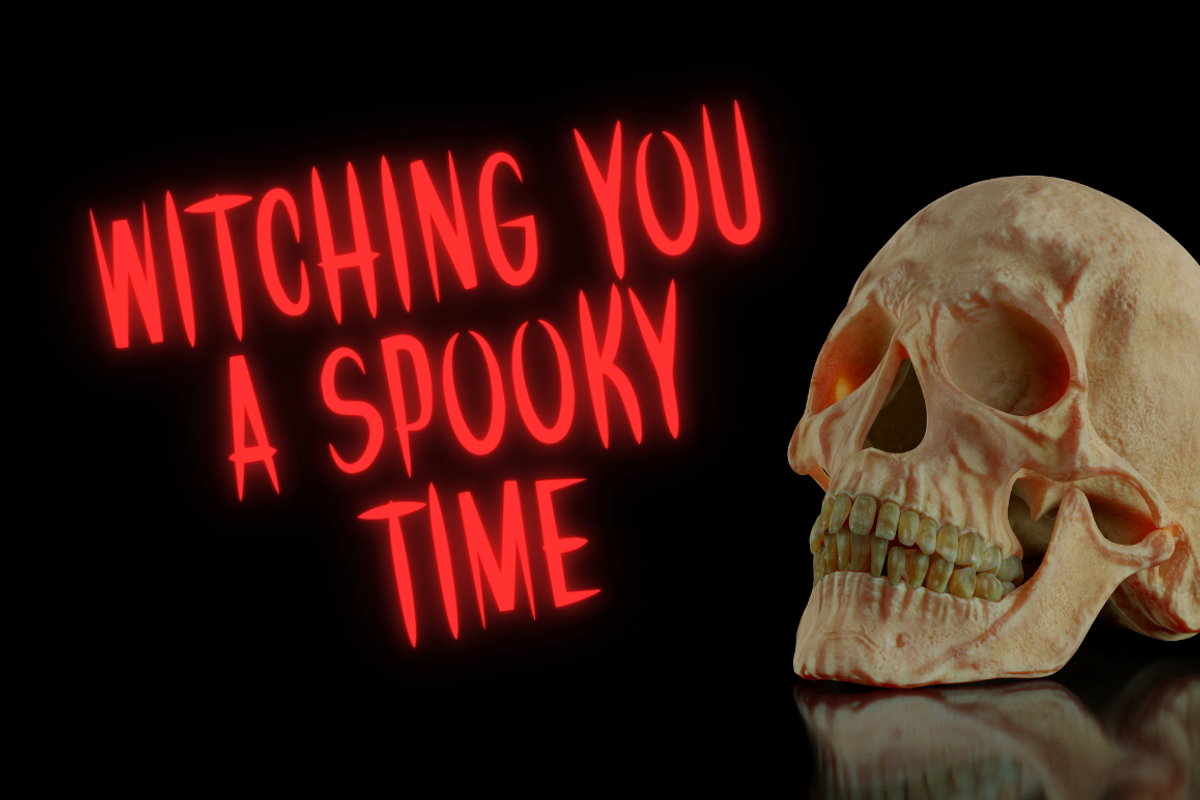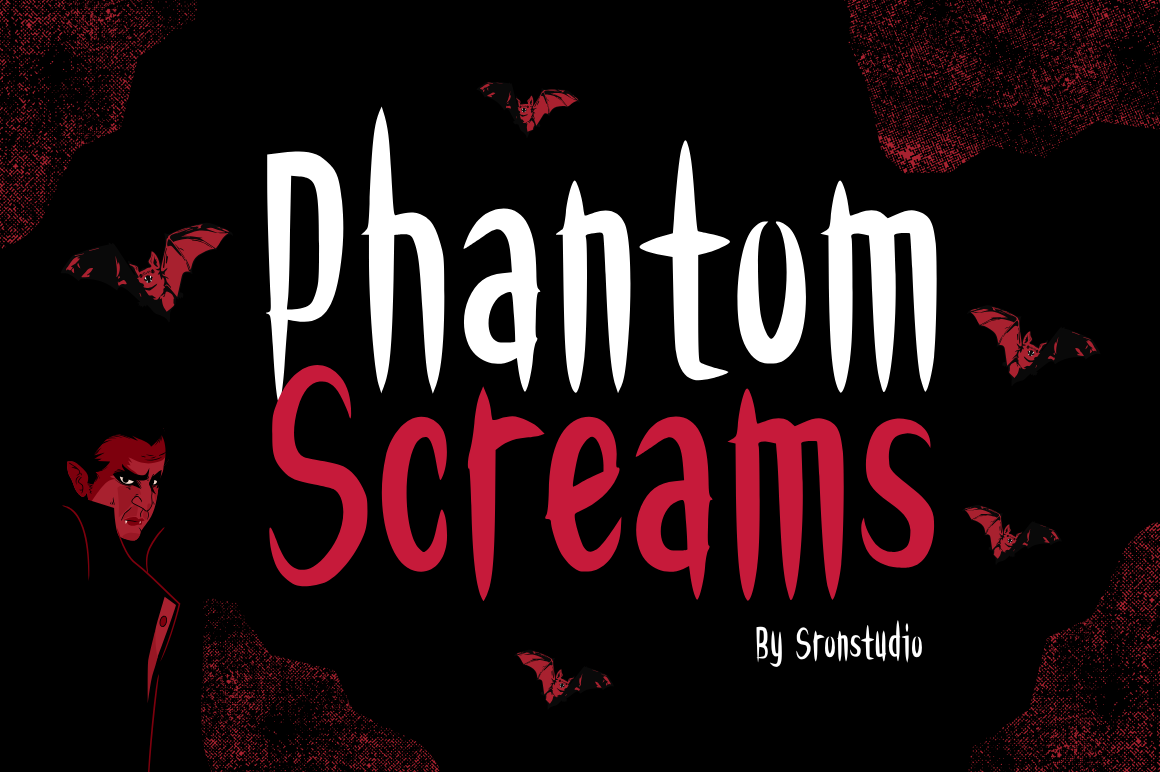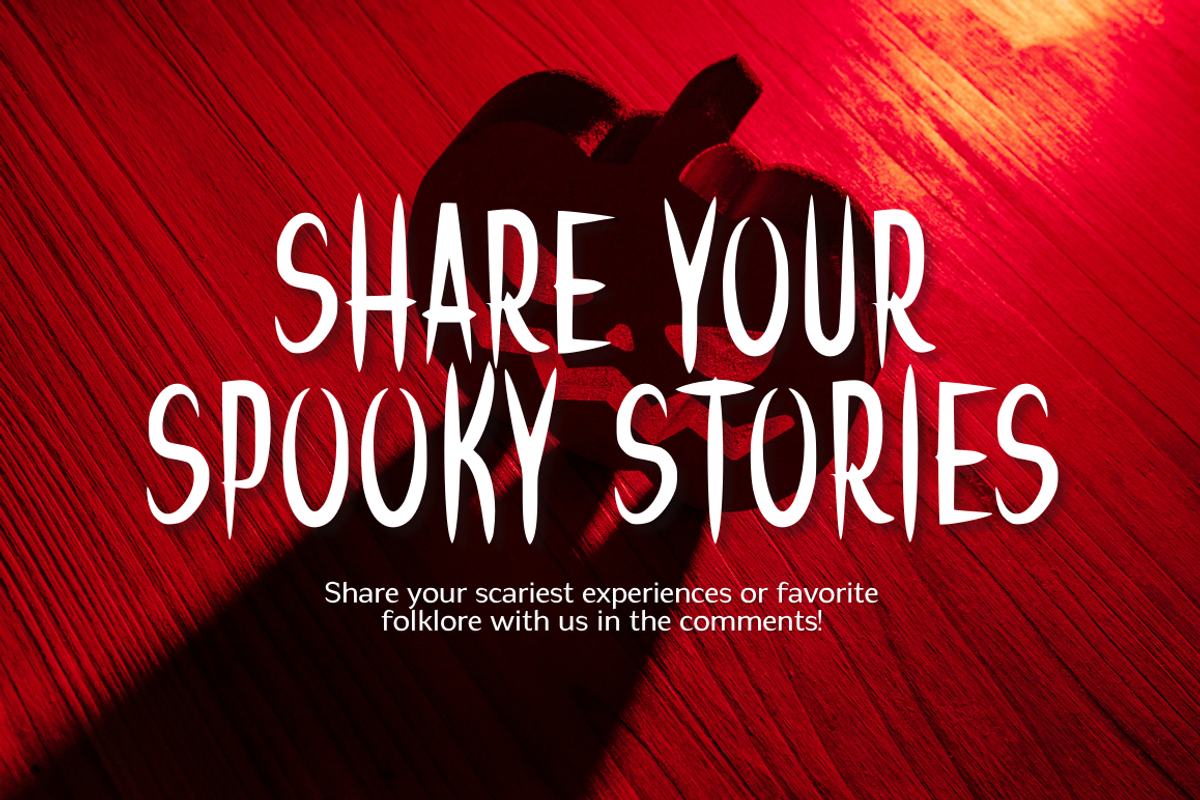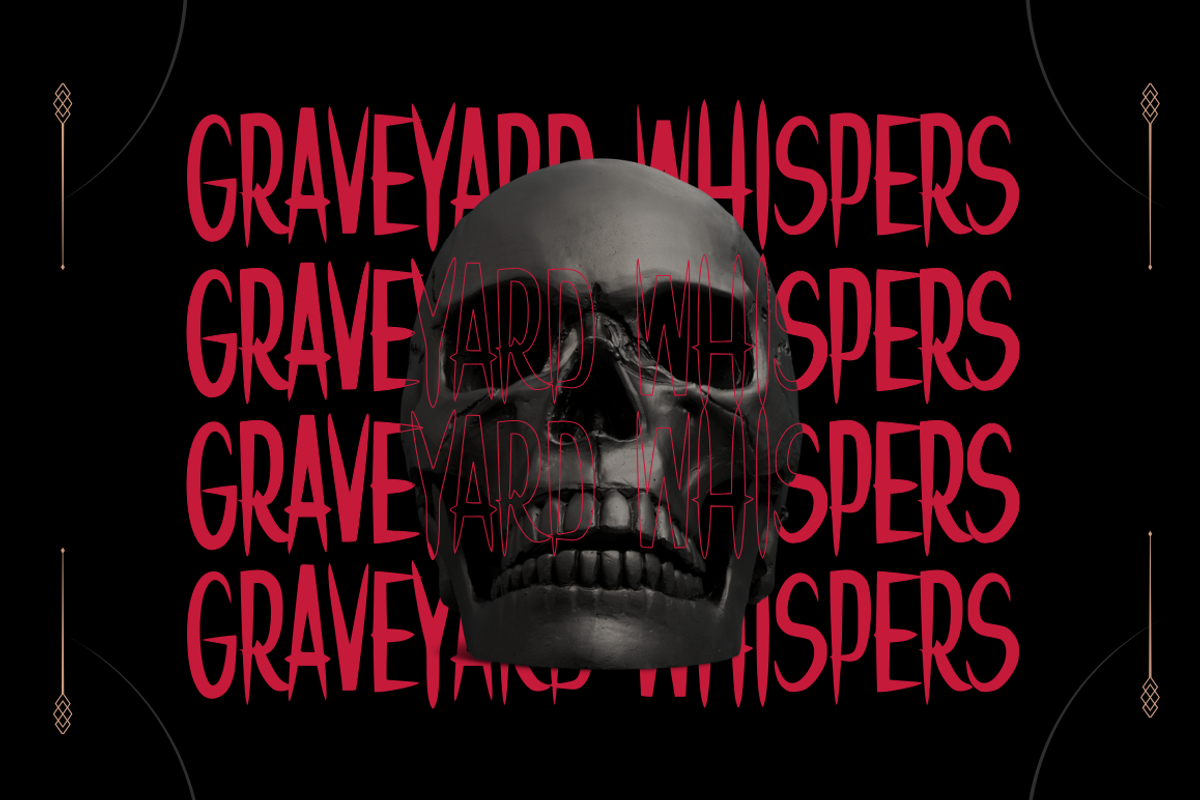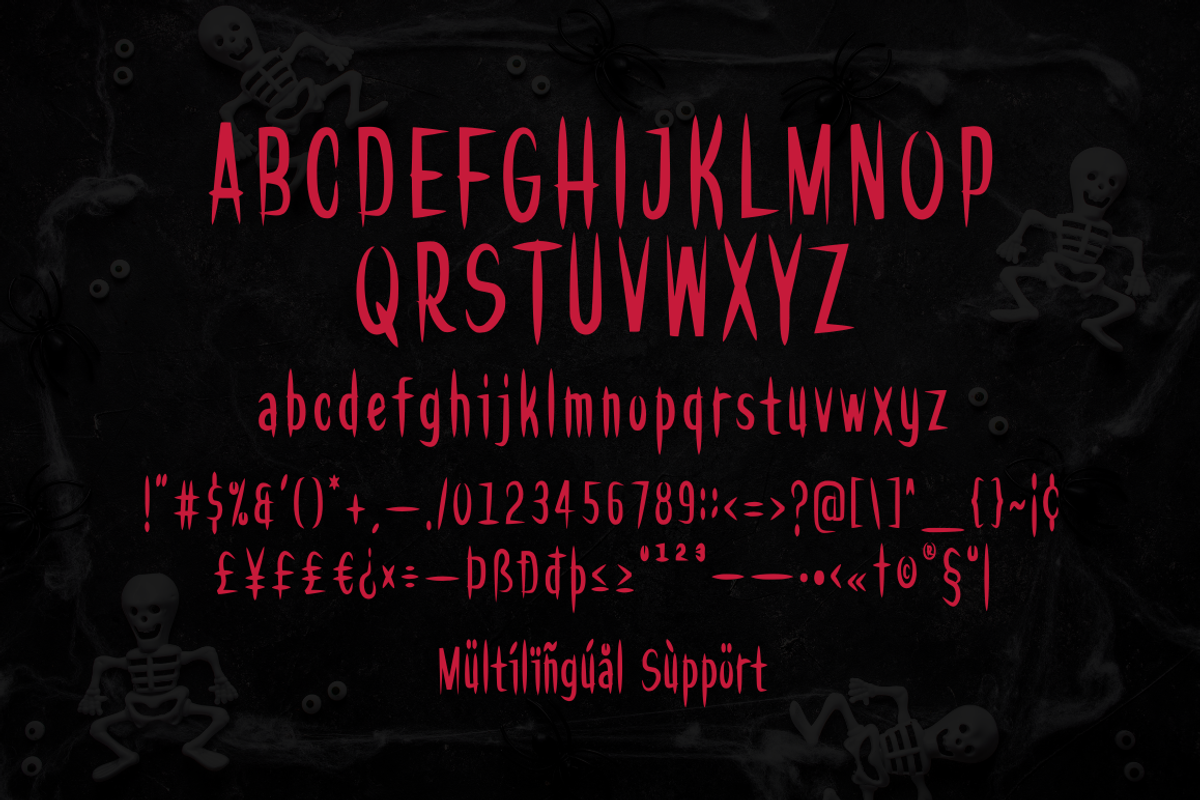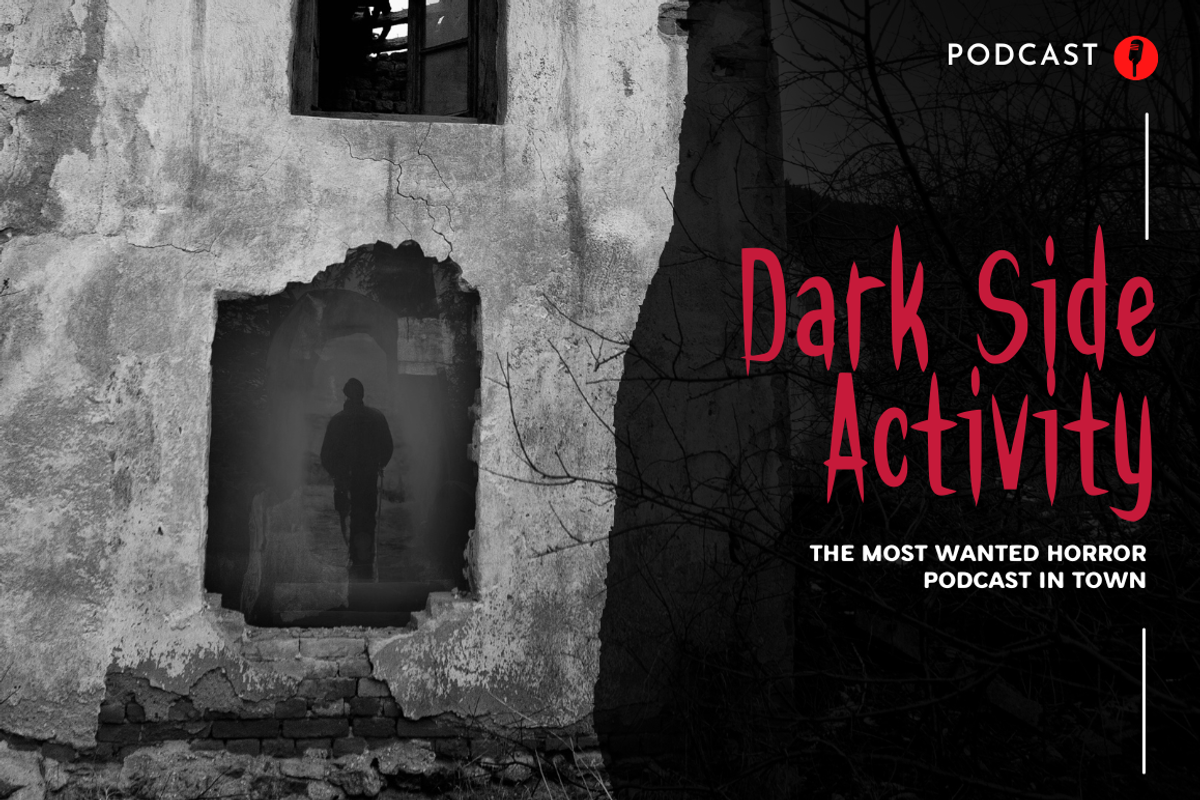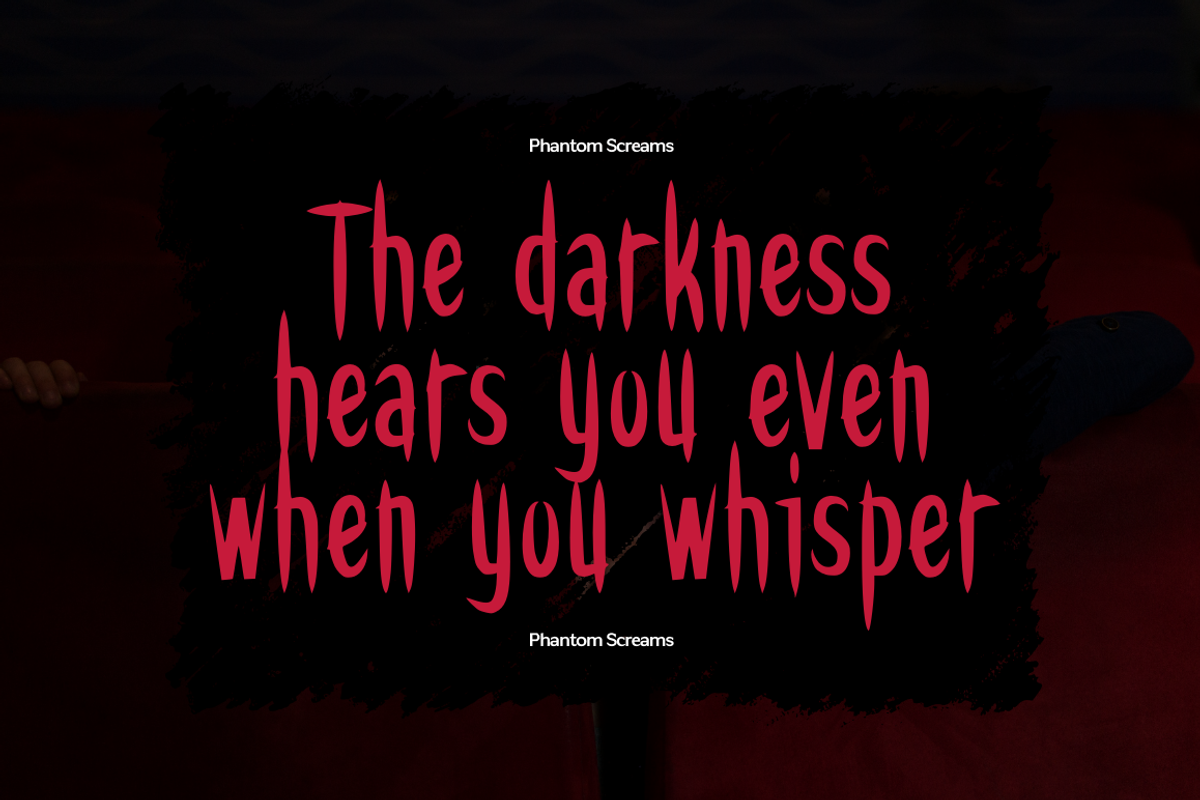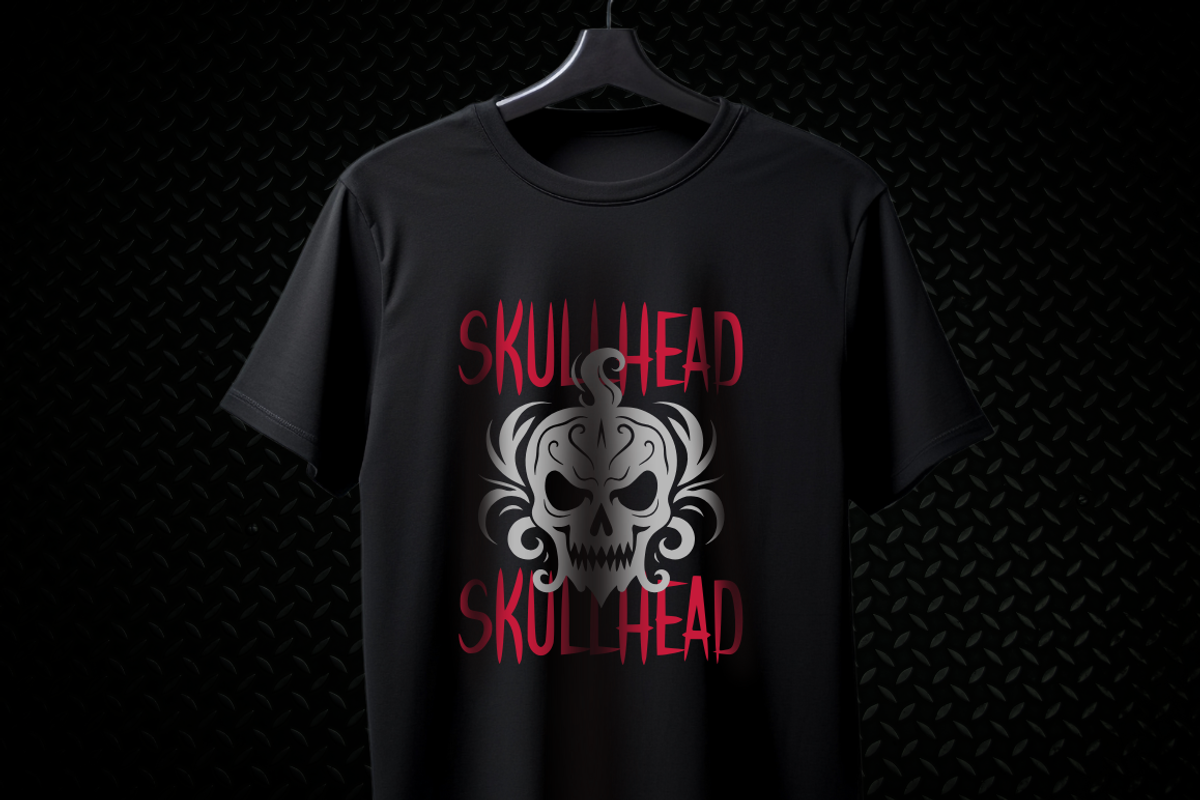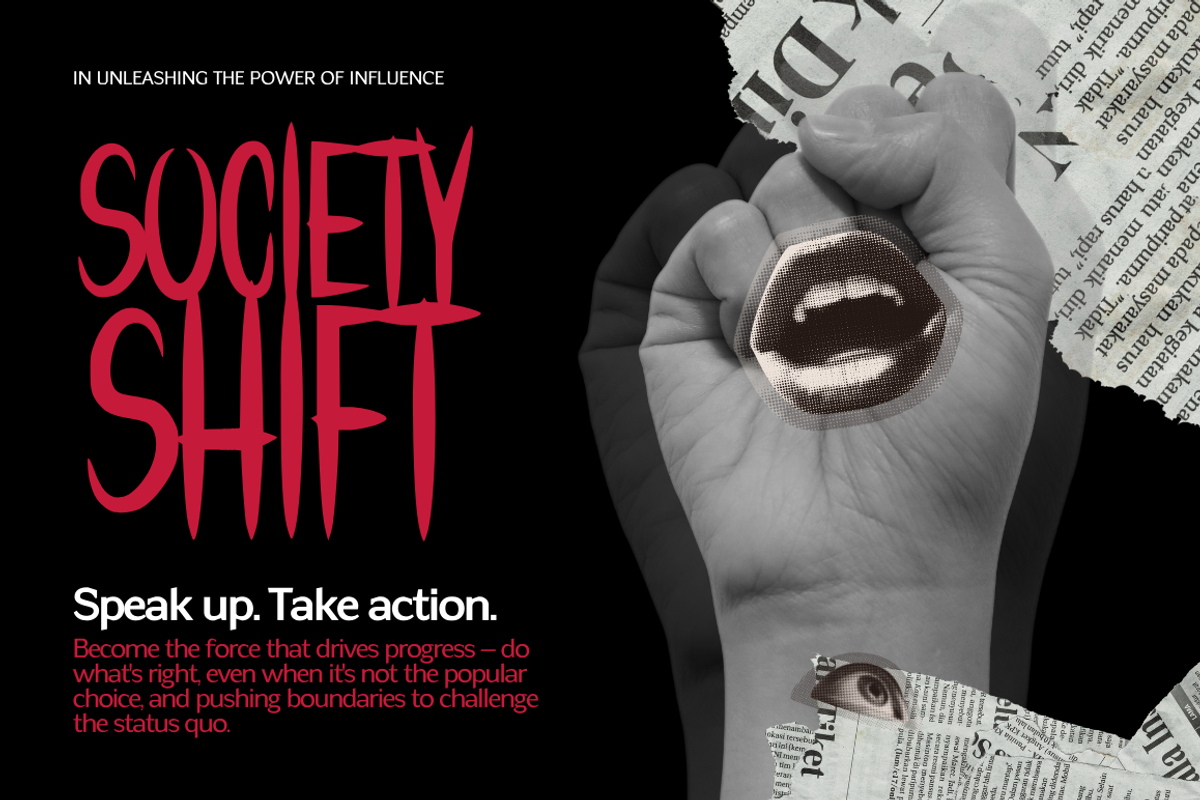
Phantom Screams - Horror Font
Phantom Screams is a terrifying horror font designed to send chills down your spine. With its eerie, jagged letterforms and haunting atmosphere, this font is perfect for horror movie titles, spooky posters, Halloween designs, and any project that needs a dose of fear. Phantom Screams captures the essence of darkness, making every word look unsettling and suspenseful. Dare to use it and unleash the horror!
- Uppercase & lowercase characters
- Numerals & punctuation